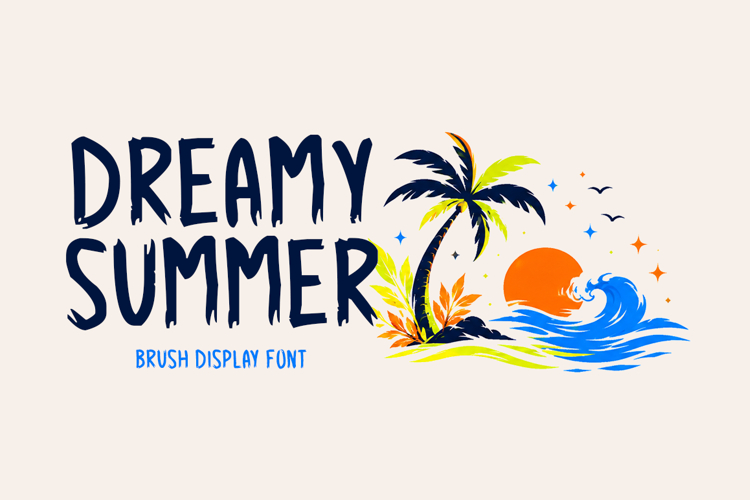
Introducing Dreamy Summer!
Dreamy Summer captures the magical energy of tropical nights, glowing waves, dreamy sunsets, and vibrant island adventures. Inspired by ocean tides, blooming paradise landscapes, and mystical summer vibes, this font blends playful elegance with bold artistic spirit. Perfect for beach-themed branding, apparel, posters, stickers, social media graphics, and colorful seasonal creative projects.